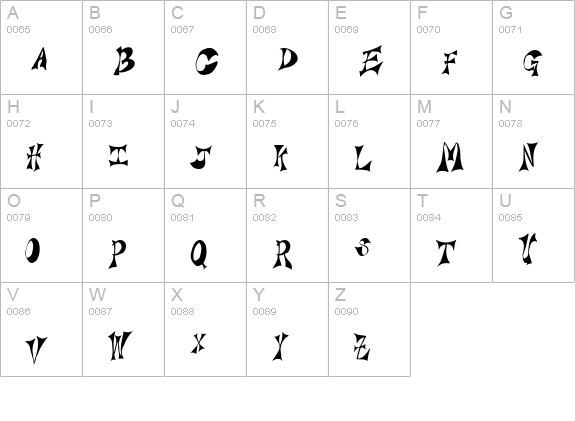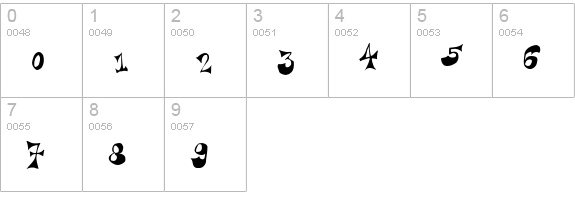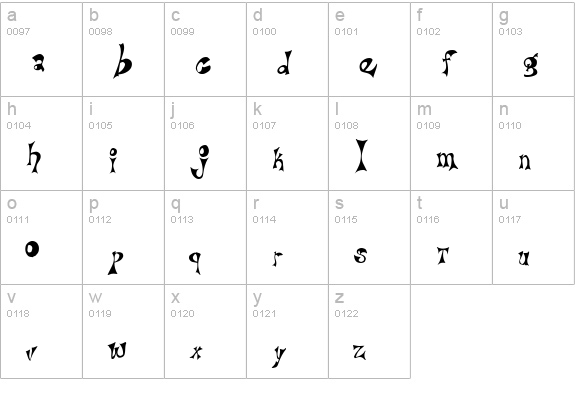
Bridie Font Details
Bridie font is a stunning typeface that exudes elegance and sophistication. Its sleek lines and modern aesthetic make it perfect for a wide range of design projects, from branding to editorial design. This versatile font features a unique blend of sharp angles and soft curves, creating a harmonious balance that captures attention while maintaining readability. What sets Bridie font apart is not only its captivating design but also the fact that it is available for free download at FontsMarket.com. This means that designers and creatives can easily access this high-quality font without any cost, making it a valuable addition to any font library. Whether you're working on a website, poster, or logo, Bridie font's versatility and style will elevate your design and help you stand out from the crowd. Download Bridie font today and unlock a world of creative possibilities.